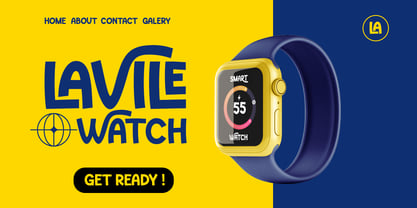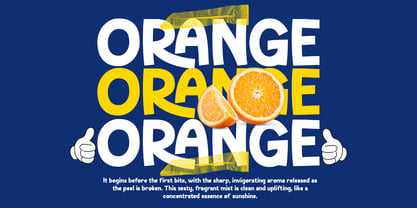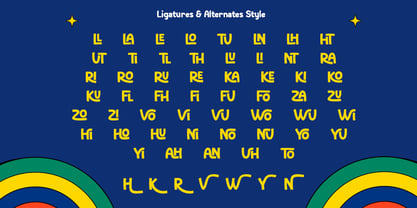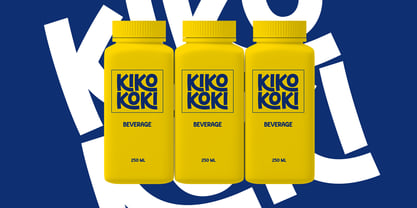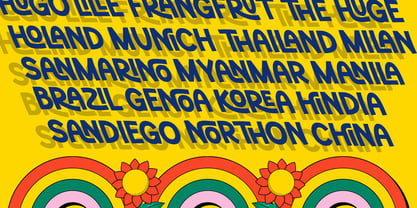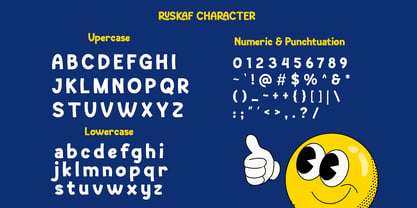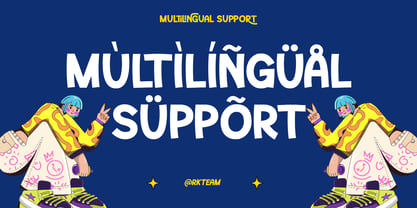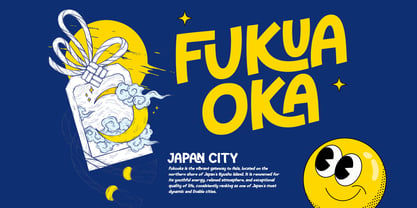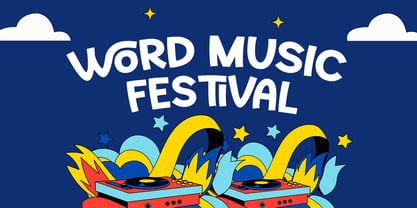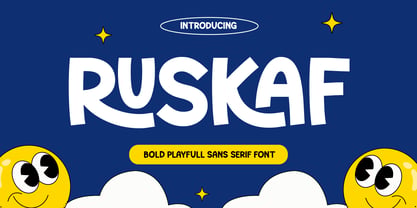
Ruskaf
by RagamKata
The Ruskaf Font Family was designed by Yogiswhara Dio Prakoso Riadi and published by RagamKata. Ruskaf contains 2 styles and family package options. More about this family
Ruskaf is a bold and cheerful sans serif font that radiates fun and positivity. With its rounded edges and lively character shapes, this font is perfect for projects that need a touch of joy and energy. Ideal for kids designs, posters, branding, packaging, and social media graphics, Ruskaf captures a friendly and approachable vibe. Its bold weight ensures excellent readability, while its playful curves bring a sense of creativity and happiness to every word. Make your message stand out with Ruskaf — a playful sans serif font designed to spread smiles and spark imagination. Thanks, Have a wonderful day Ragamkata Studio
Designers: Yogiswhara Dio Prakoso Riadi
Foundry: RagamKata